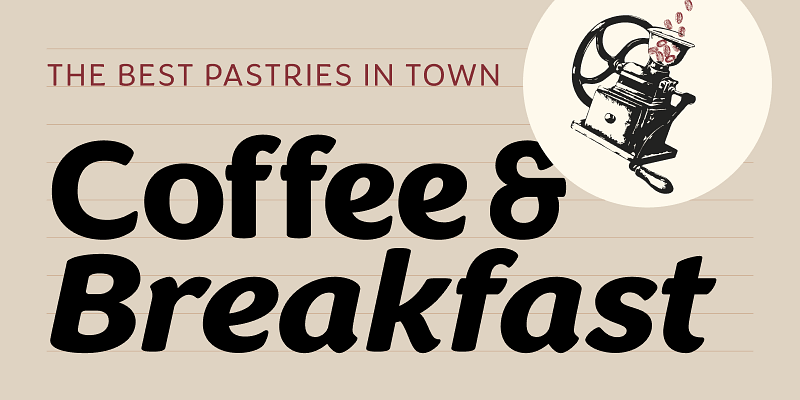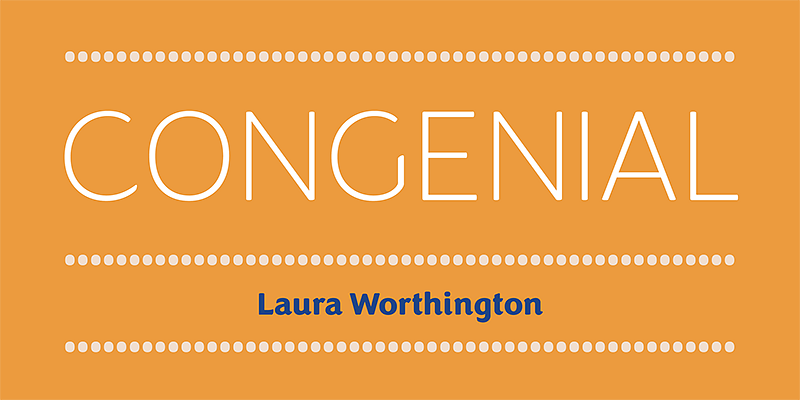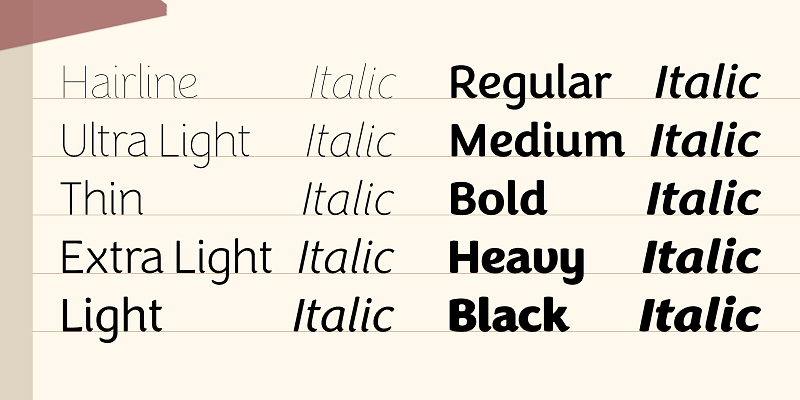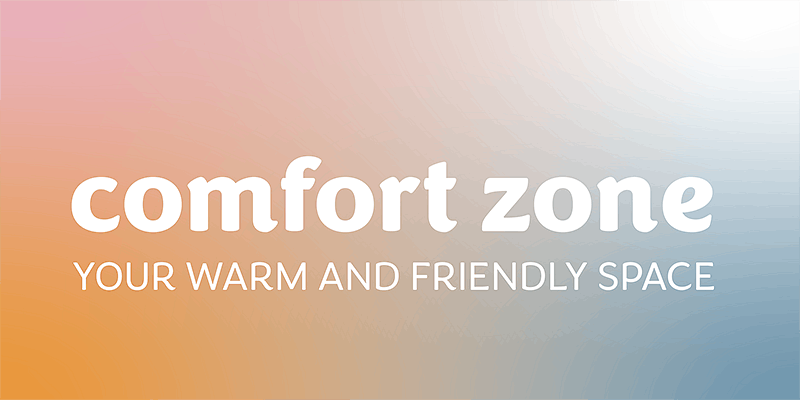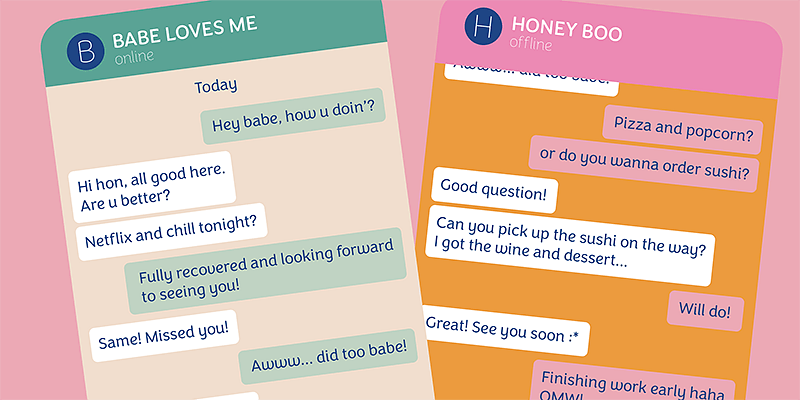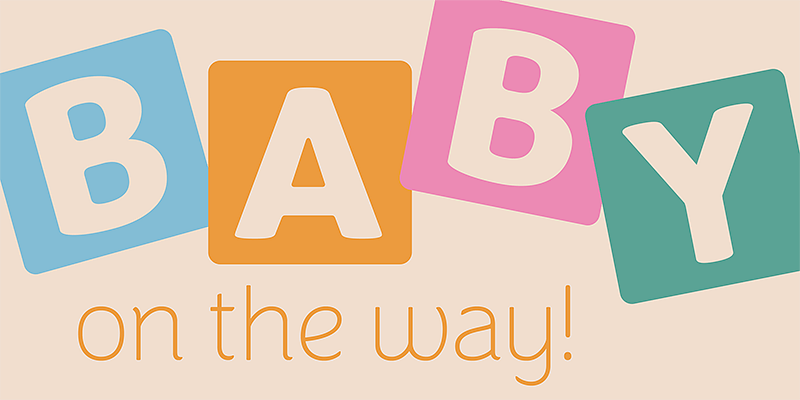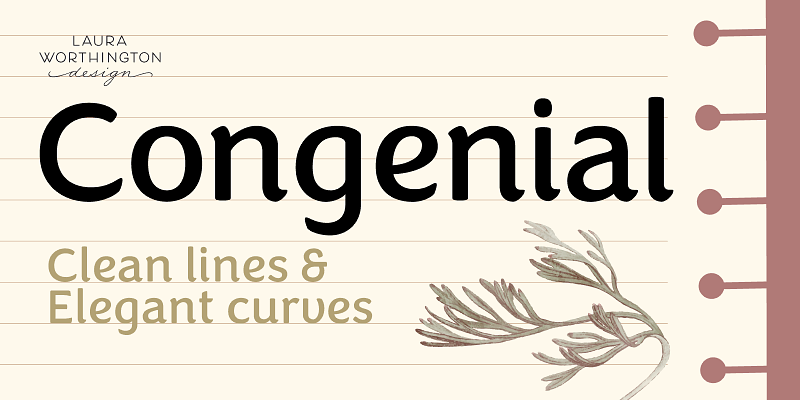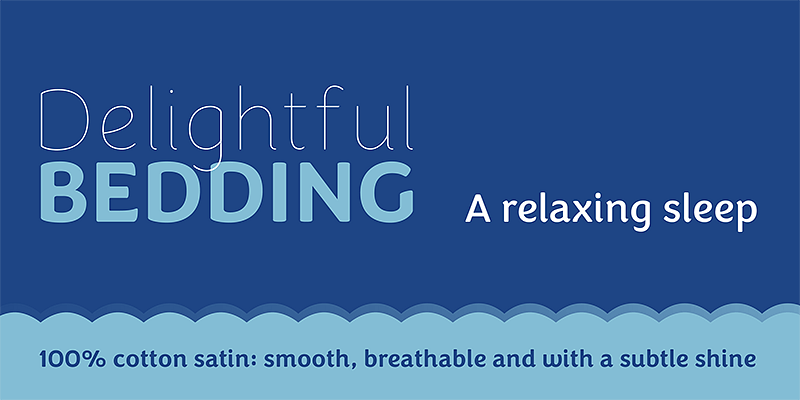
Laura Worthington wanted to design her own sans-serif typeface for her website to complement the rest of her type library; She designed Congenial as an understated, highly legible complement to my more decorative display faces. Of course, she’s never far from my calligraphic roots, so Congenial retains some hand-drawn elements, visible particularly in the heavier weights of this generous 10-weight family with italics. As befits its name, Congenial is a friendly and inviting face with a generous x-height and highly differentiated characters.